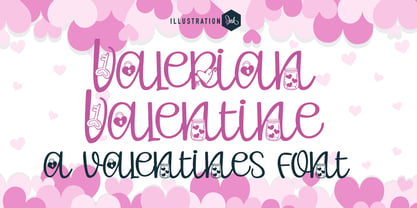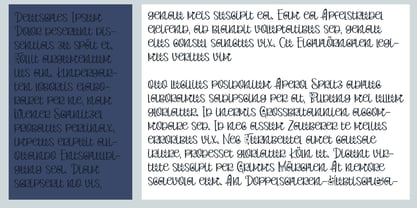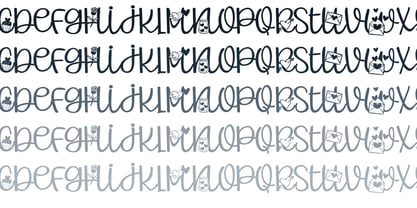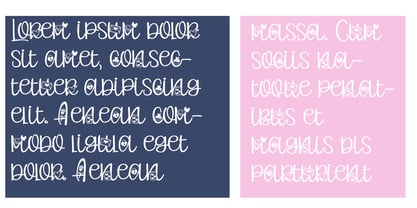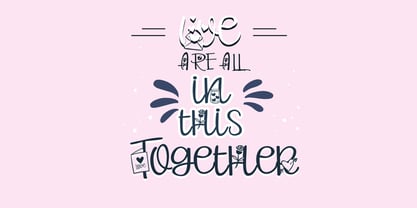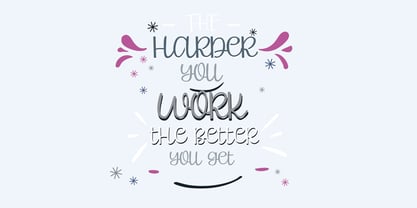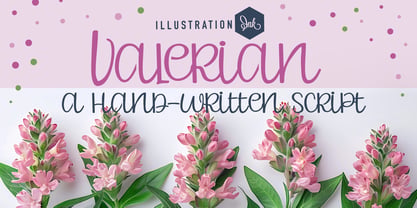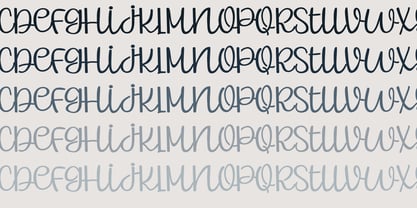
PN Valerian
by Illustration Ink
The PN Valerian Font Family was designed by Illustration Ink and published by Illustration Ink. PN Valerian contains 9 styles and family package options. More about this family
This hand-crafted font trio is a whimsical hand-written print/script with several family member's sporting Valentine imagery. Hand-crafted fonts can be either formal or informal, and they can be used for a variety of purposes. Some of the characteristics of handwritten fonts include: The letters are not perfectly uniform in size or shape. There may be slight variations in the spacing between letters and words. The font may have a "wiggly" or "squiggly" appearance. The font may be difficult to read at small sizes. Handwritten fonts can be a great way to add a casual touch to your designs. They can also be used to create a sense of nostalgia or whimsy. However, it is important to choose a handwritten font that is appropriate for the project you are working on. A formal handwritten font may not be appropriate for a casual invitation, while an informal handwritten font may not be appropriate for a corporate document.
Designers: Illustration Ink
Foundry: Illustration Ink